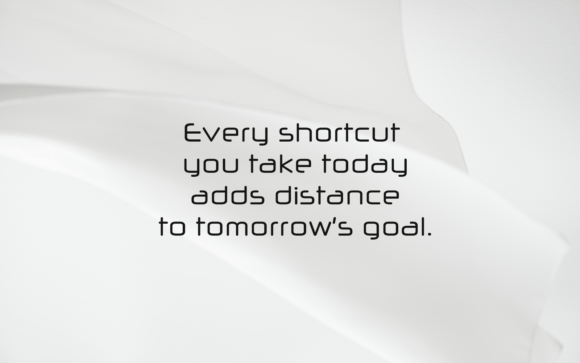
Apex Nova Font: Revolutionizing Visual Communication
Are you tired of the same old typographic styles that seem to blend into the background? Do you yearn for a font that makes a statement and sets your brand apart? Look no further than the Apex Nova Font, a game-changing typeface that’s poised to revolutionize the world of visual communication.
The Birth of a Revolutionary Font
Born from the intersection of cutting-edge design and ingenious artistry, Apex Nova Font is more than just a collection of letters – it’s a movement. This font is the brainchild of designers who dared to challenge the status quo and push the boundaries of typographic innovation. The result is a typeface that redefines modern aesthetics, exuding a sophisticated intelligence that’s sure to make your message resonate with clarity and impact.
Sleek Lines and Distinctive Character
One of the standout features of Apex Nova Font is its sleek lines and distinctive character. This font boasts a unique blend of modernity and timelessness, making it perfect for brands that want to make a lasting impression. Whether you’re crafting a groundbreaking website, designing a forward-thinking marketing campaign, or developing a visually stunning editorial piece, Apex Nova Font provides the intellectual edge you need to stand out in a crowded marketplace.
Elevate Your Brand with a Visual Voice
Imagine your brand elevated by a visual voice that’s both contemporary and timeless. With Apex Nova Font, you can give your brand the gift of a distinctive personality that sets it apart from the competition. This font is designed to be versatile, working seamlessly across various mediums and applications. From digital platforms to print materials, Apex Nova Font is the perfect choice for designers and crafters who want to make a lasting impact.
Key Features of Apex Nova Font
- Unique and distinctive character: Apex Nova Font boasts a one-of-a-kind design that’s sure to turn heads.
- Sleek lines and modern aesthetic: This font is perfect for brands that want to convey a sense of sophistication and intelligence.
- Versatile and adaptable: Apex Nova Font works seamlessly across various mediums and applications, from digital platforms to print materials.
- Timeless and contemporary: This font is designed to be both modern and timeless, making it a valuable asset for brands that want to make a lasting impression.
Applications of Apex Nova Font
Apex Nova Font is perfect for a wide range of applications, including:
- Web design: Give your website a modern and sophisticated edge with Apex Nova Font.
- Marketing campaigns: Make your marketing materials stand out with a font that’s both attention-grabbing and memorable.
- Editorial design: Add a touch of sophistication and elegance to your editorial pieces with Apex Nova Font.
- Branding and identity: Give your brand a distinctive personality with a font that’s both unique and memorable.
In conclusion, Apex Nova Font is a game-changing typeface that’s poised to revolutionize the world of visual communication. With its sleek lines, distinctive character, and versatile design, this font is perfect for designers and crafters who want to make a lasting impact. Whether you’re looking to elevate your brand, create a visually stunning editorial piece, or simply make a statement, Apex Nova Font is the perfect choice. So why settle for the same old typographic styles when you can be a part of a revolution in visual communication? Try Apex Nova Font today and discover a new world of creative possibilities.